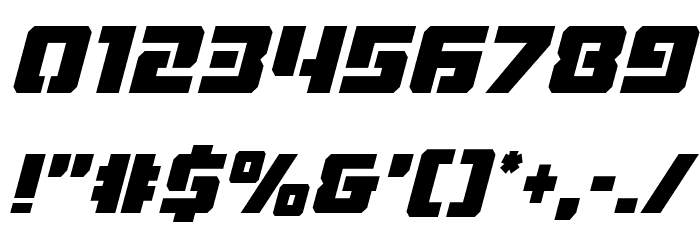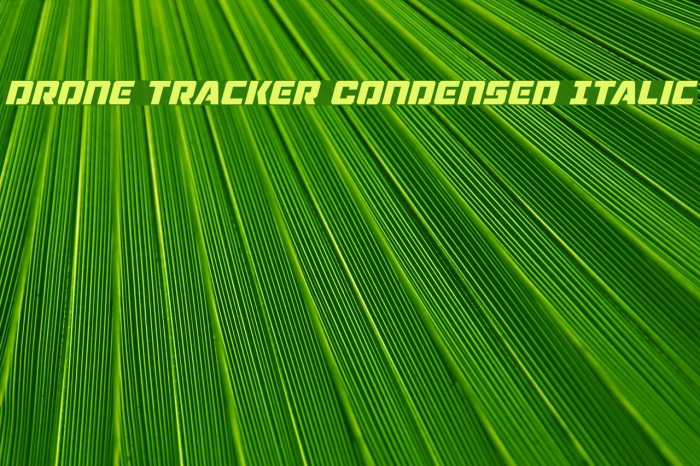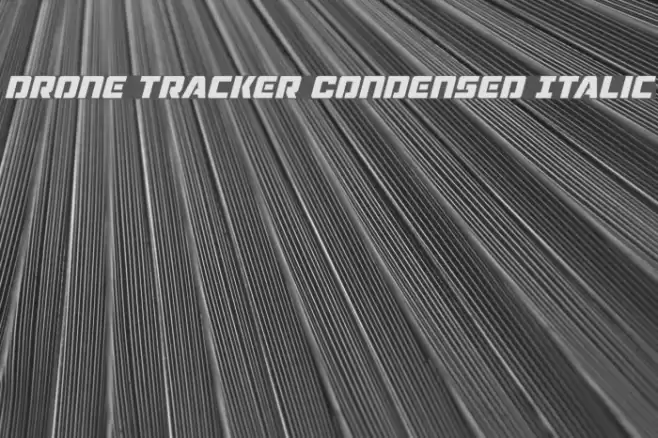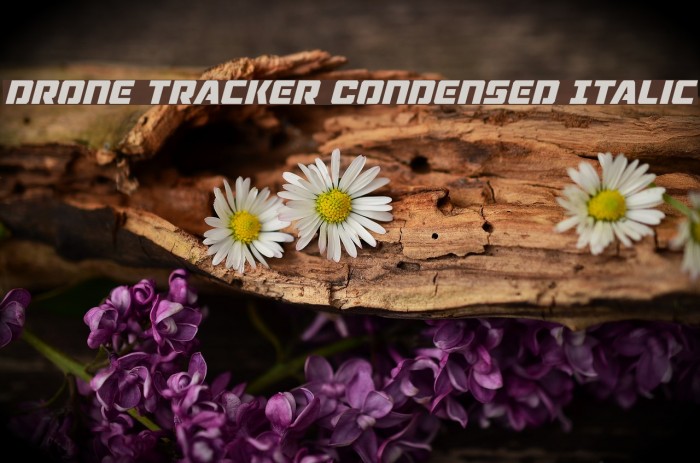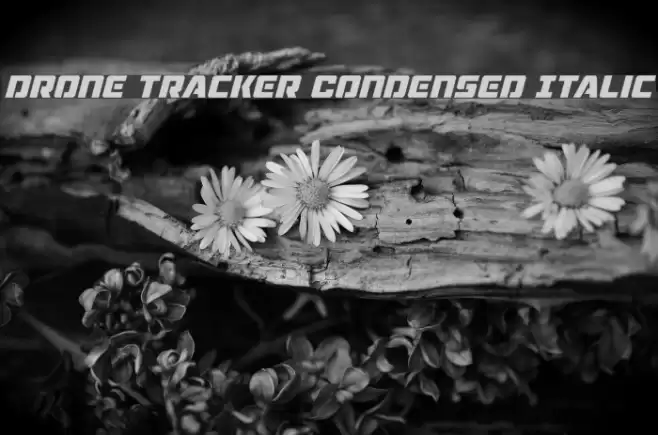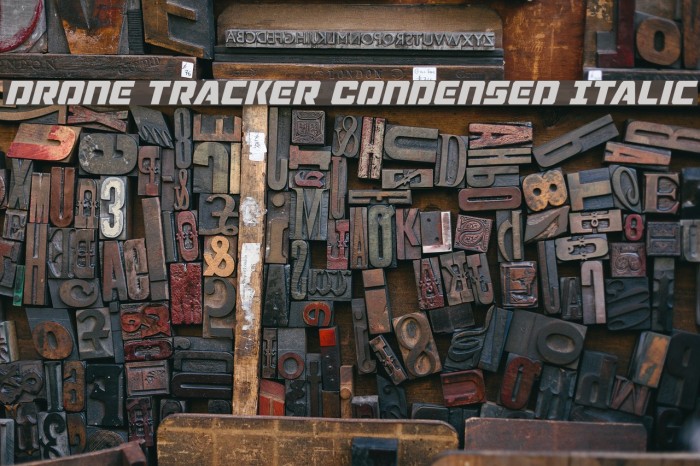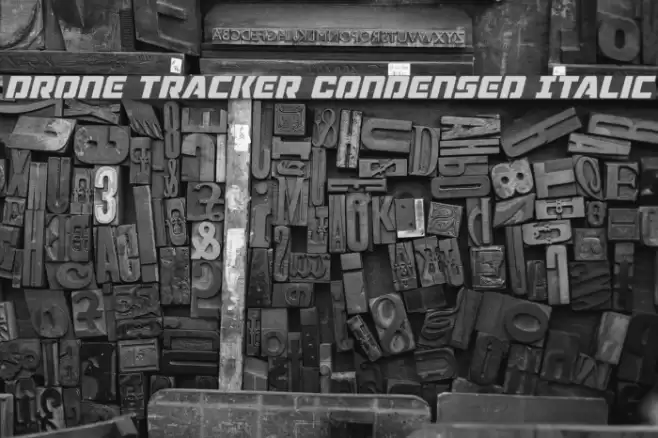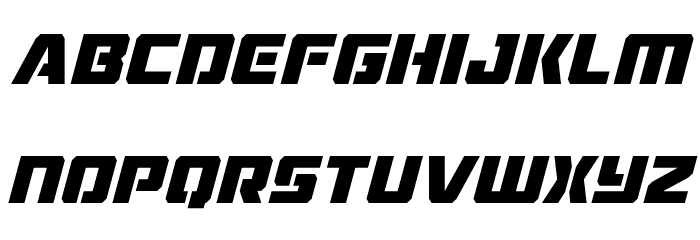
Drone Tracker Condensed Italic Font
Drone Tracker Condensed Italic Description
This font features a bold, futuristic design with a condensed and italicized style. The characters are angular and geometric, giving a sense of speed and modernity. The uppercase letters are particularly striking, with sharp edges and a dynamic slant that suggests movement. The numbers and special characters maintain this aesthetic, providing a cohesive look across all glyphs. The overall appearance is both strong and sleek, making it suitable for projects that require a contemporary and assertive visual impact.
A bold, condensed, and italicized font with a futuristic and geometric design from Uncategorized fonts.
- Proposed Projects: Ideal for technology branding, sports team logos, video game titles, and sci-fi movie posters.
- Character Spacing: Tight
- Use Case: Logos, Headlines